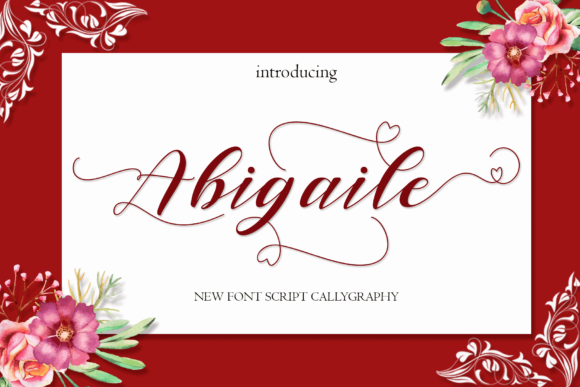
Abigaile Font
Journey through the enchanting world of Abigaile Font, a script font of exquisite elegance that will cast a spell on your creative endeavors. Its graceful curves and delicate strokes evoke a bygone era, adding a touch of vintage charm to your designs.
Dive into a world of romance and sophistication with Abigaile Font, a captivating script that will transform your words into works of art. Its timeless beauty and refined character make it the perfect choice for adding a personal touch to invitations, wedding stationery, and heartfelt letters.
Let Abigaile Font guide you on a creative adventure, where your imagination takes center stage. Its versatility allows you to effortlessly glide from elegant logos to captivating social media posts, from enchanting branding to breathtaking marketing materials. Unleash your inner artist and let Abigaile Font elevate your designs to new heights.
With Abigaile Font, you'll discover a font that speaks to the heart. Its timeless charm and romantic flair will add a touch of magic to your creative projects, leaving a lasting impression on those who encounter it. Embrace the elegance of Abigaile Font and let your creativity flourish like never before.
Immerse yourself in the world of Abigaile Font, where beauty and functionality intertwine. Its carefully crafted characters and thoughtful design ensure seamless integration into your digital and print projects. Experience the ease of use and versatility that make Abigaile Font a must-have for any creative toolbox.